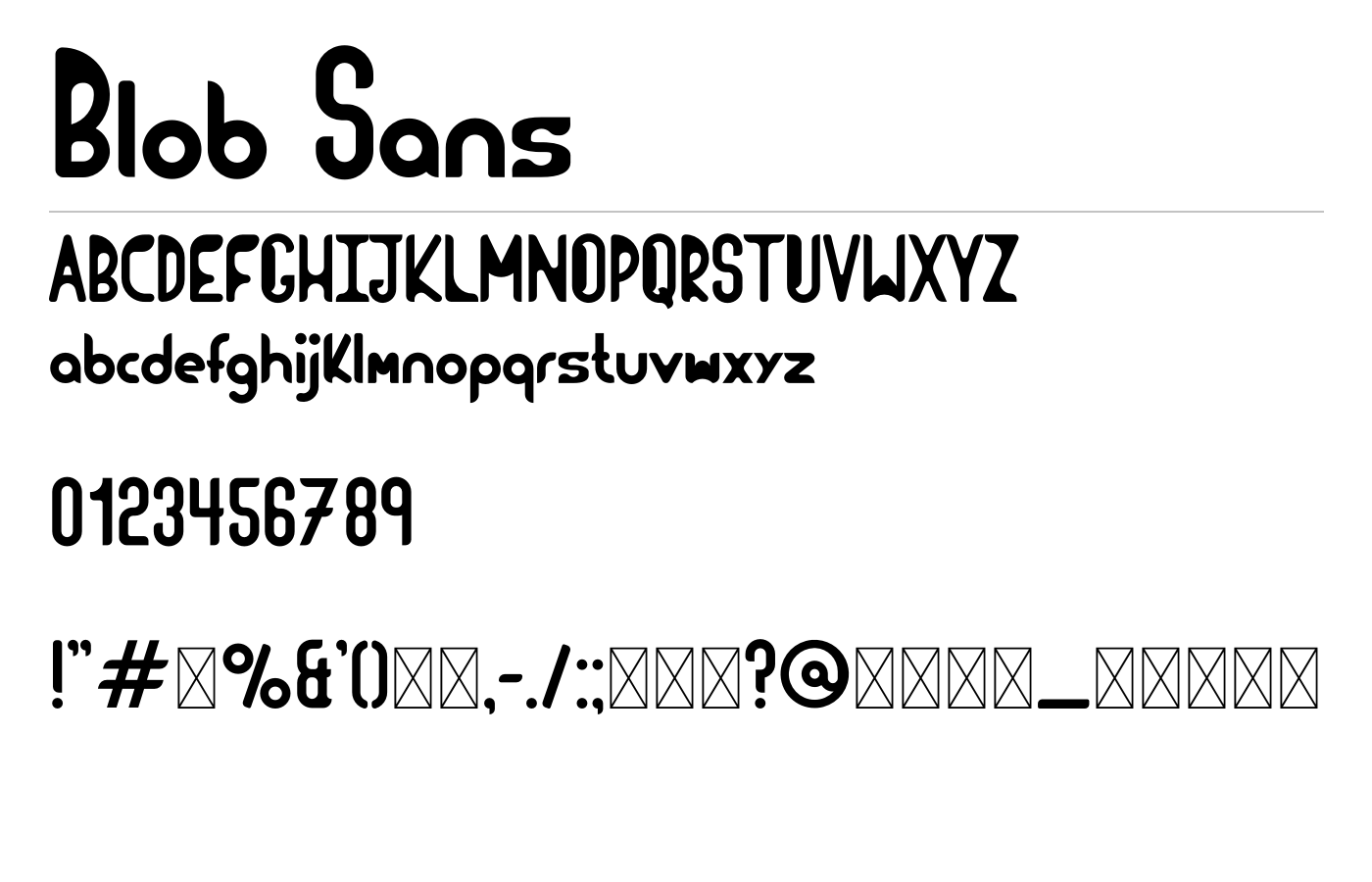
Blob Sans is a playful and modern sans serif font featuring rounded, thick strokes with a slightly condensed, quirky character. Its uniform weight and unique letterforms give it a friendly, approachable vibe perfect for creative branding, headlines, and fun editorial designs. This font works well where a distinctive, informal look is desired to engage audiences with a lively yet clean style.
Blob Sans Font
About Blob Sans Font
| Font family | Blob Sans Font |
| Designer | Jay Ferguson |